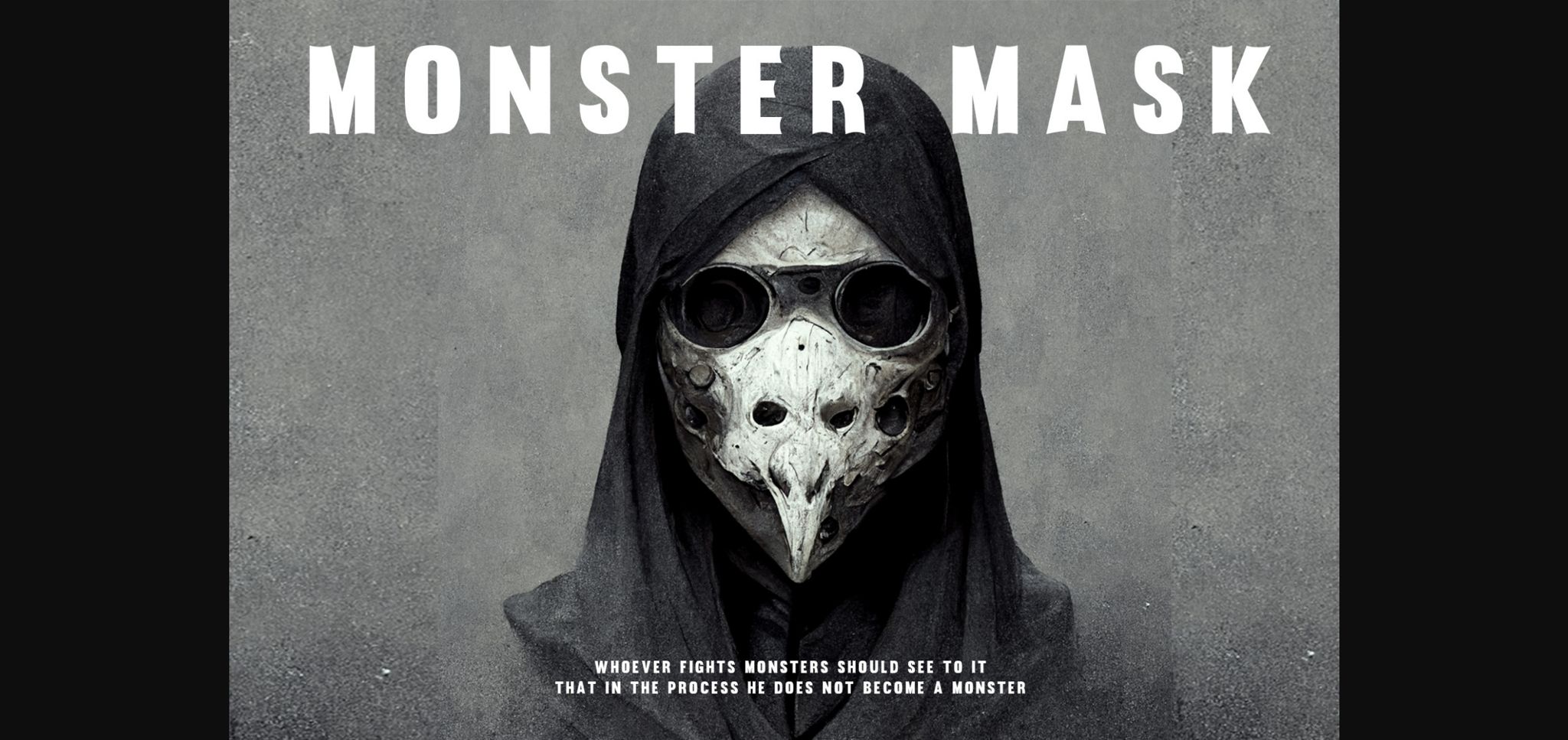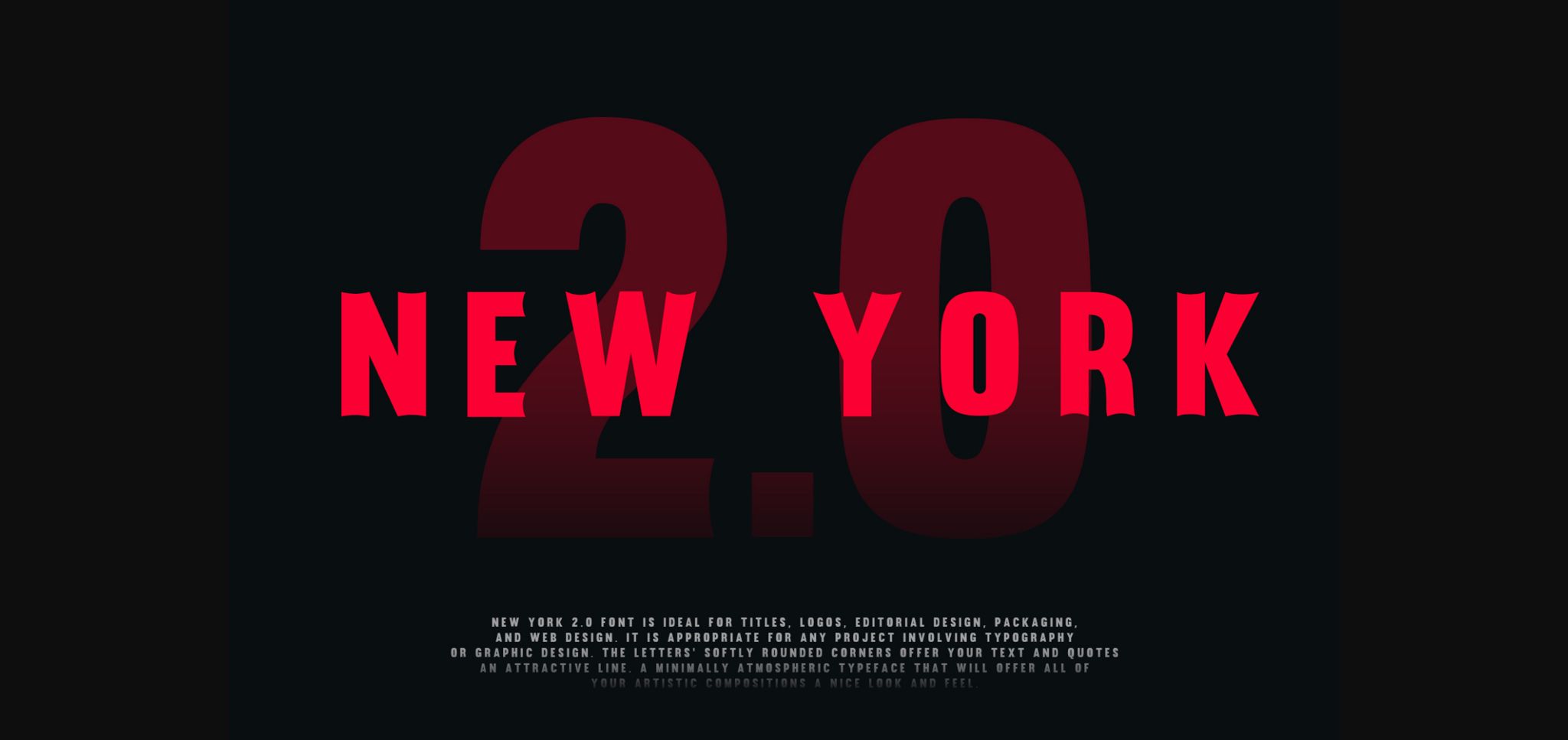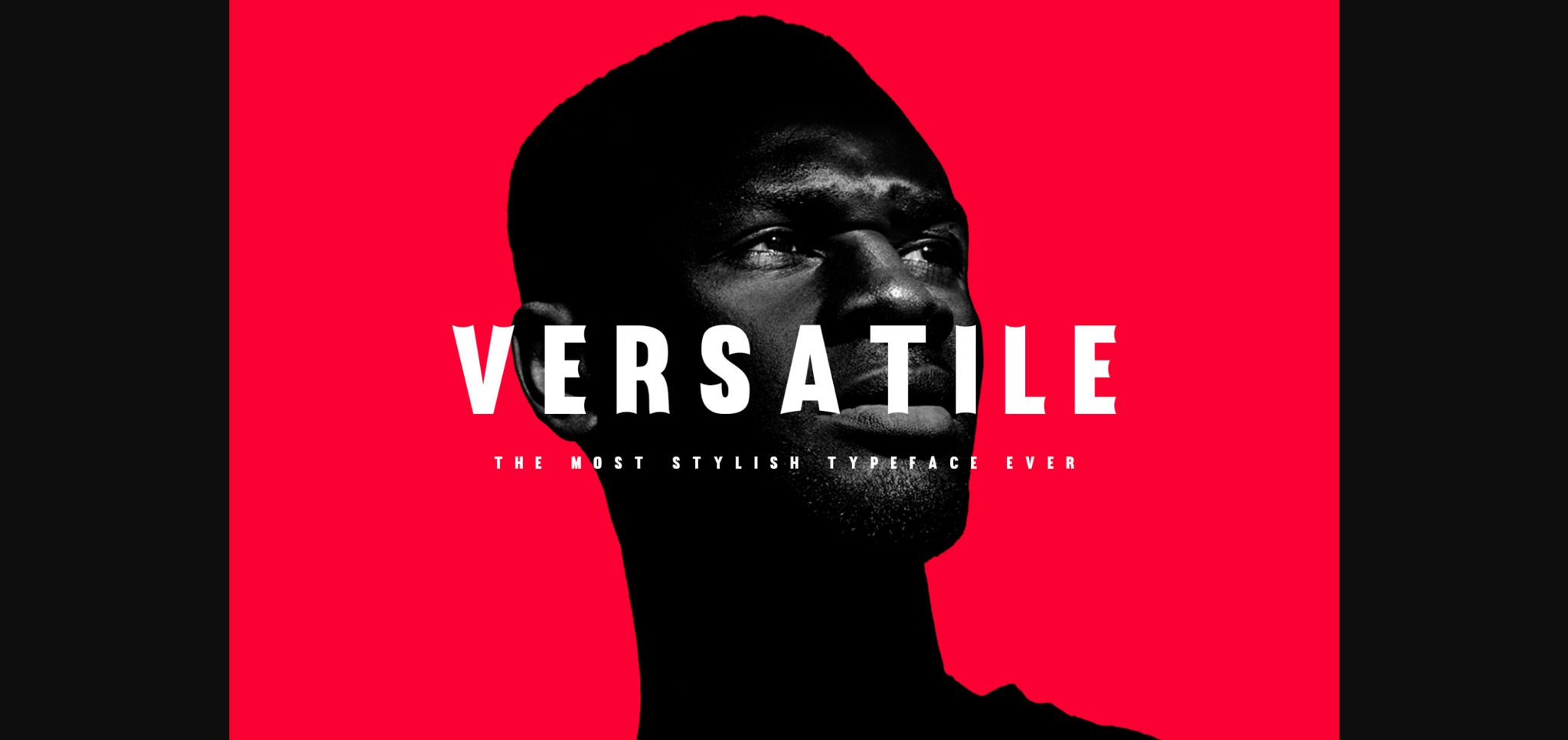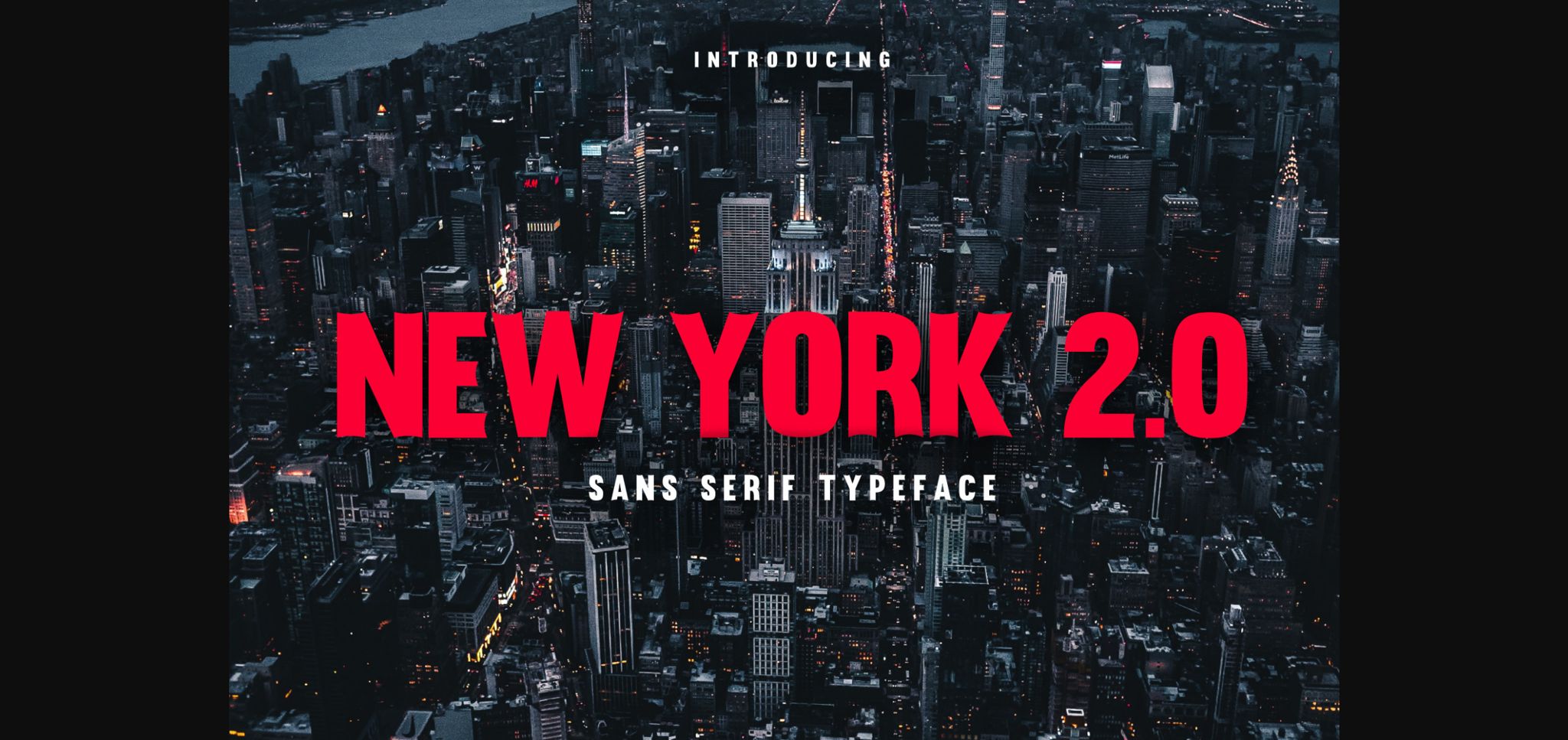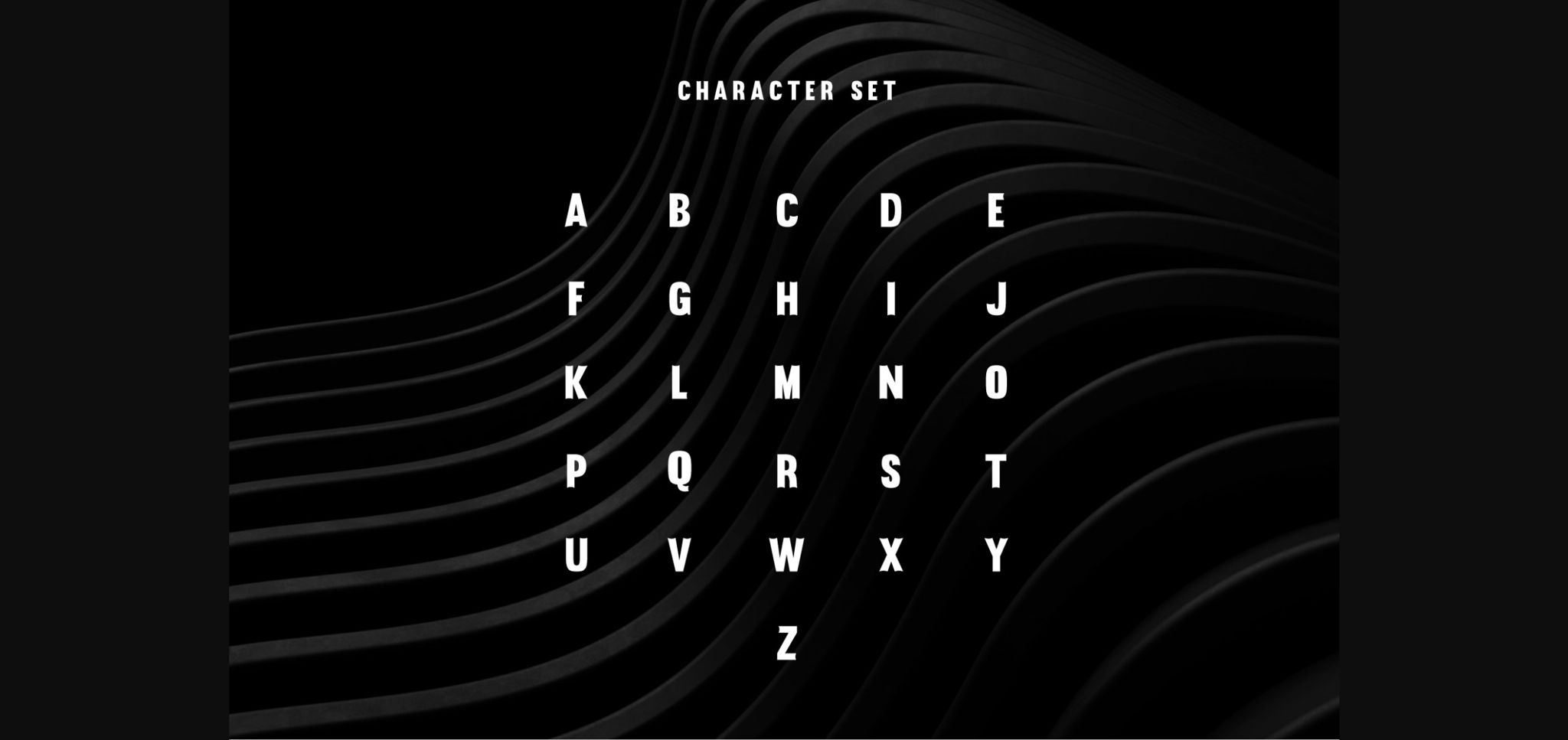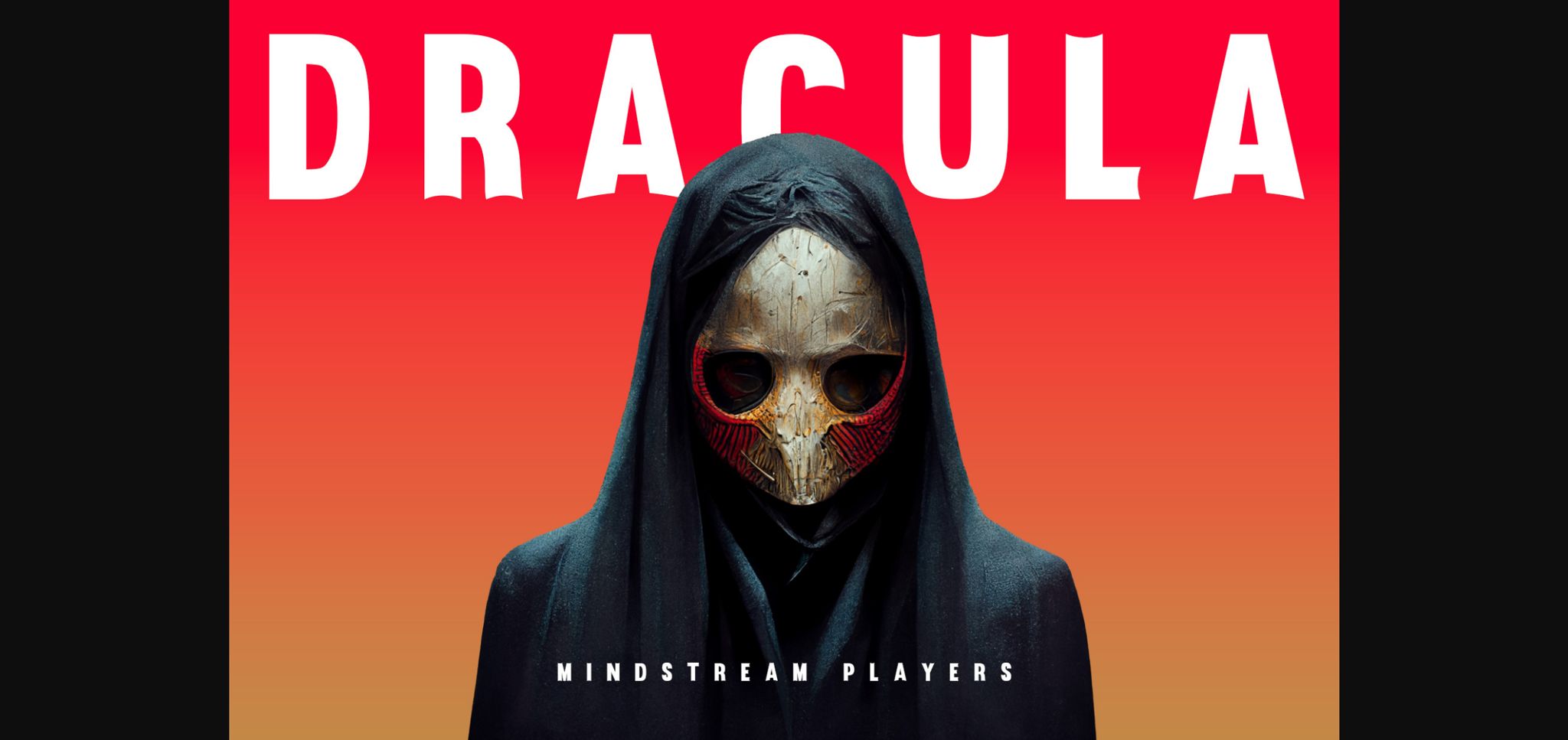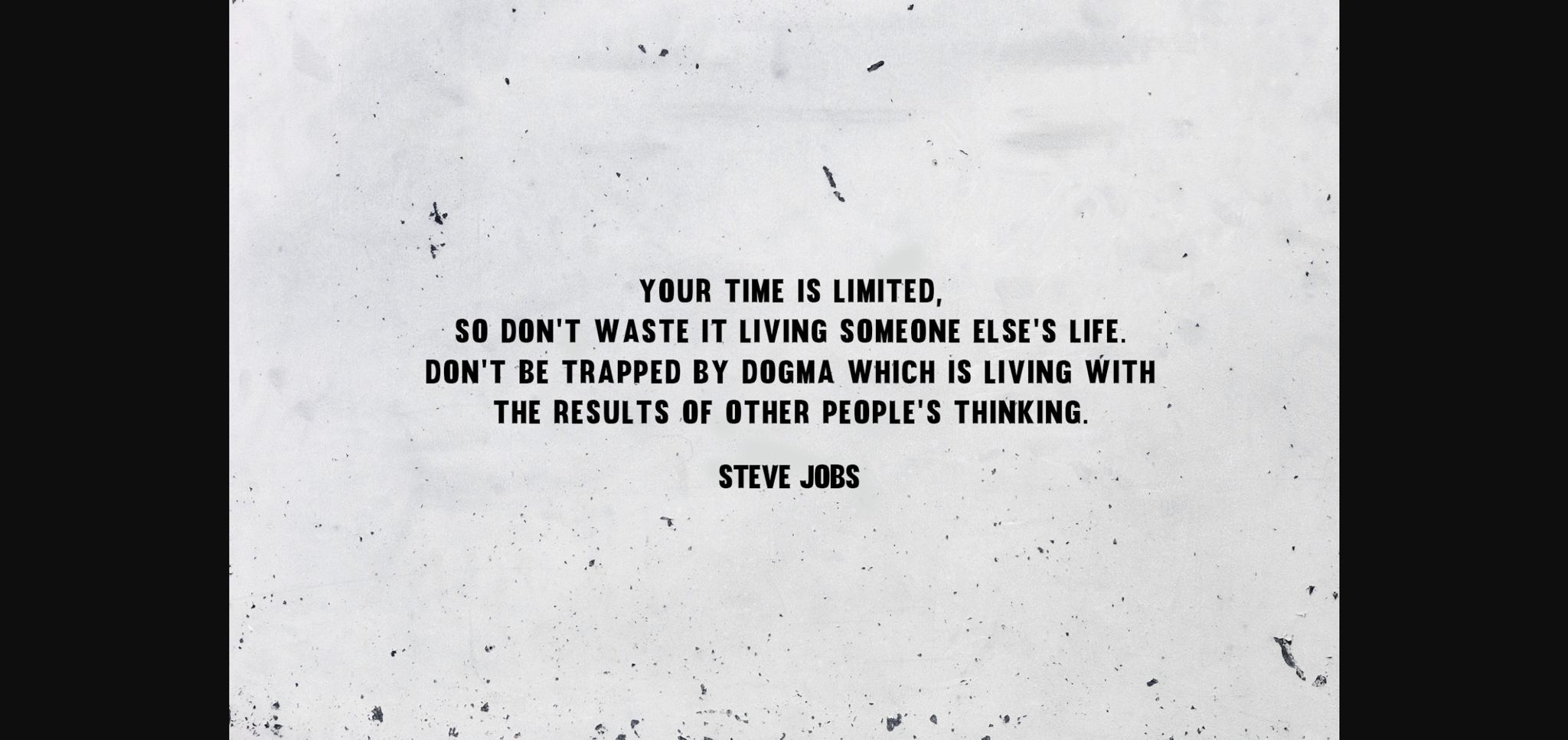
New York 2.0 Font
About New York 2.0 Font
New York 2.0 is a cool and sleek sans serif font. No matter the topic, this font will be an incredible asset to your fonts’ library, as it has the potential to elevate any creation.